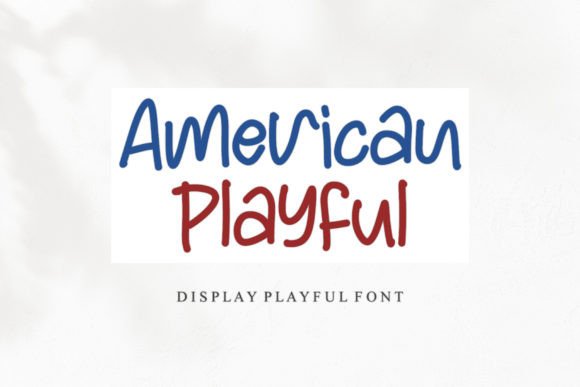
Welcome to the realm of American Playful Font, a display font family that unlocks a universe of creativity. This simple, yet captivating handwritten font is the brainchild of Letterafa Studio, renowned for their artistic prowess in the world of typography. With its playful personality and boundless versatility, American Playful Font is poised to inject a spark of joy and uniqueness into your design projects.
Step into a world where fonts come alive, where letters dance and words ignite the imagination. American Playful Font is not just a collection of characters; it's an artistic expression that will transform your designs into captivating masterpieces. Whether you're crafting logos, branding materials, invitations, social media posts, or any other creative endeavor, American Playful Font will add a touch of fun and friendliness that resonates with your audience.
Visualize the impact of American Playful Font on your designs. Its effortless charm will capture attention, leaving a lasting impression on your customers or viewers. Elevate your projects with the delightful energy of this font, creating a connection that goes beyond words. American Playful Font is your key to unlocking a realm of captivating designs that speak volumes.
Immerse yourself in the limitless possibilities of American Playful Font. Its versatility knows no bounds, adapting seamlessly to a myriad of design concepts. From whimsical invitations to playful social media campaigns, this font will effortlessly enhance your creative vision. Let your imagination soar as you explore the endless applications of American Playful Font, transforming ordinary designs into extraordinary works of art.
But American Playful Font is more than just a beautiful font; it's an emotion, a feeling, a story waiting to be told. Its playful spirit will infuse your designs with a sense of joy and lightheartedness, inviting your audience to engage with your content on a deeper level. Whether you're creating marketing materials, website designs, or personal projects, American Playful Font will add a touch of magic that resonates with hearts and minds.